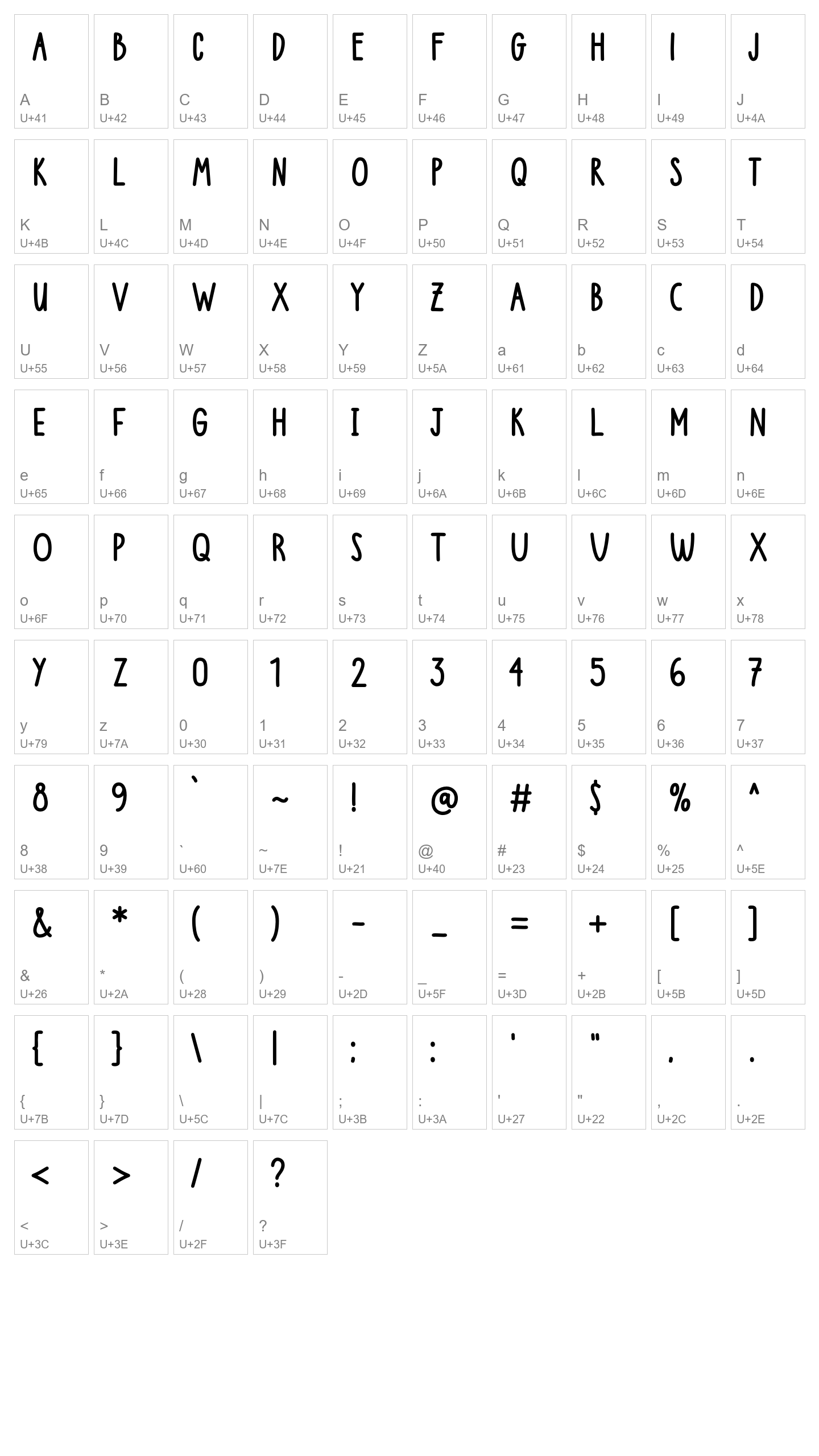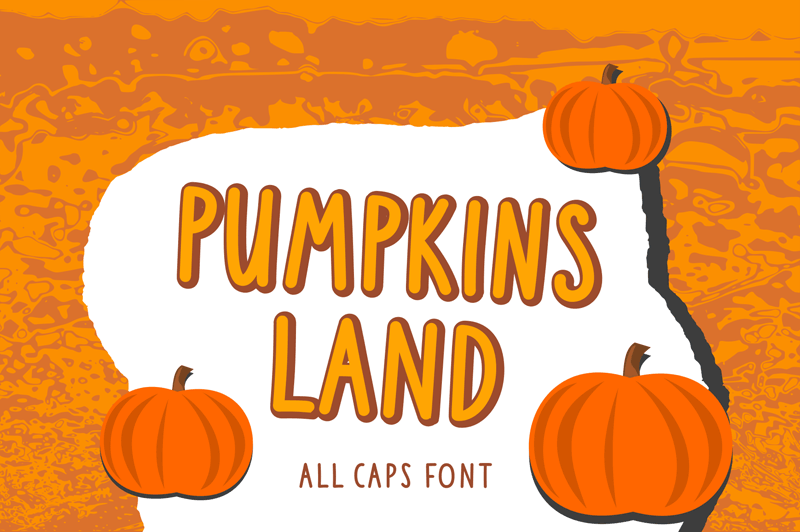
Pumpkins Land
PUMPKINS LAND | ALL CAPS FONT
Pumpkins Land is a simple, skinny, tall, all-caps typeface with a handcrafted, handwritten feel. Perfect for social media posts, branding, quotes, logos, packaging, and fun projects.